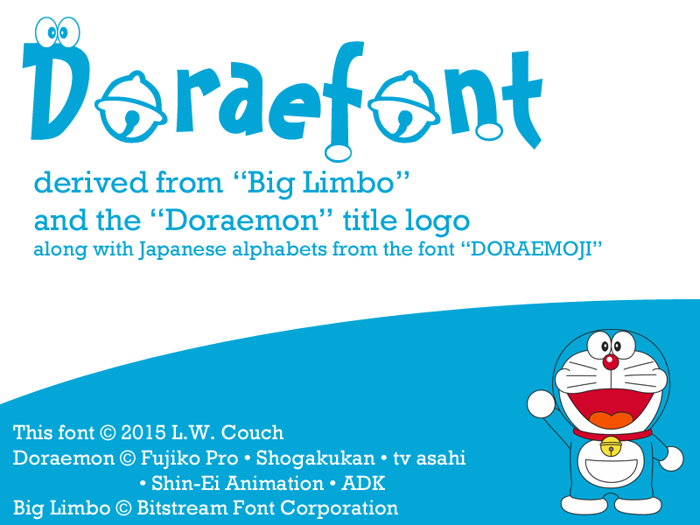
Doraefont Font
This is a font I made back in November 2015. It reminds me of Doraemon so I'd thought I upload this font on Doraemon's birthday (September 3rd).